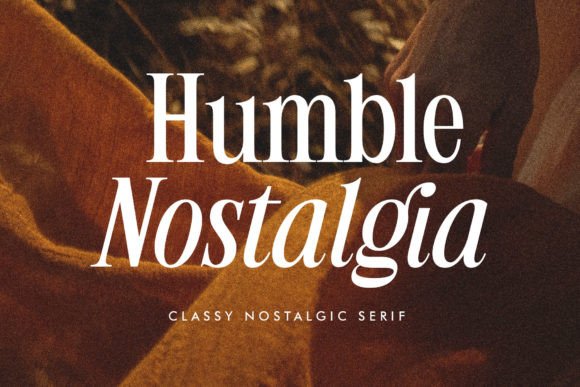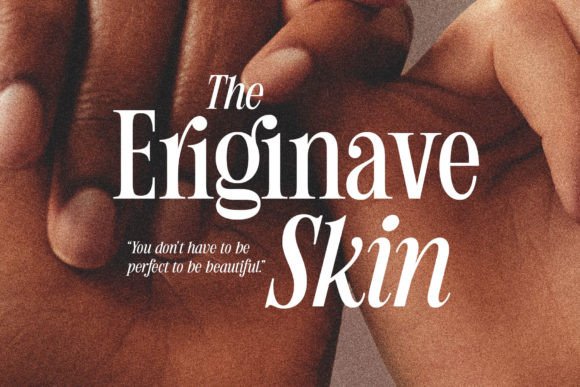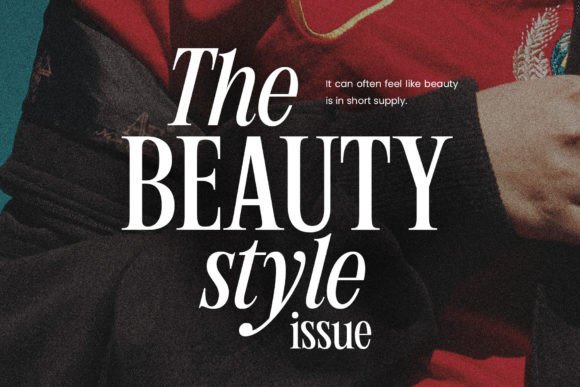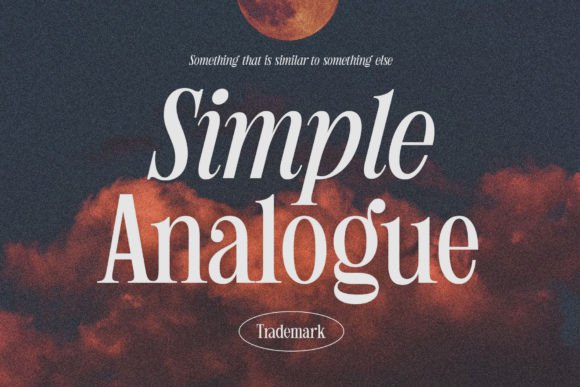
Humble Nostalgia Font
About the Humble Nostalgia Font
Make a bold statement with Humble Nostalgia Font, a powerful and memorable font. Experience the classic feel with Humble Nostalgia! A classy and elegant serif font that will transport you to the 80s era. Specially crafted with a modern touch, designed with tight kerning and spacing to achieve a more aesthetic appearance. A perfectly versatile font pair suitable for fashion, cosmetics, lifestyle, posters, branding, logos, logotypes, weddings, invitations, quotes, and much more.
Humble Nostalgia’s elegant yet approachable personality makes it ideal for headlines, short-form text in branding materials, and sophisticated packaging designs. Its refined aesthetic also works well for posters and invitations, particularly those with a retro or vintage theme. However, its tight kerning isn’t suited to lengthy body text or UI elements where readability is paramount.
Consider pairing Humble Nostalgia with a clean sans-serif like Montserrat for a balanced contrast or a playful script font such as Pacifico for a more whimsical feel. A geometric sans-serif, like Futura, would create a strong modern juxtaposition. These pairings enhance readability while maintaining a cohesive visual identity.
The font exudes a sense of refined nostalgia, making it perfect for brands aiming for a timeless yet contemporary image within the fashion, beauty, or lifestyle sectors.